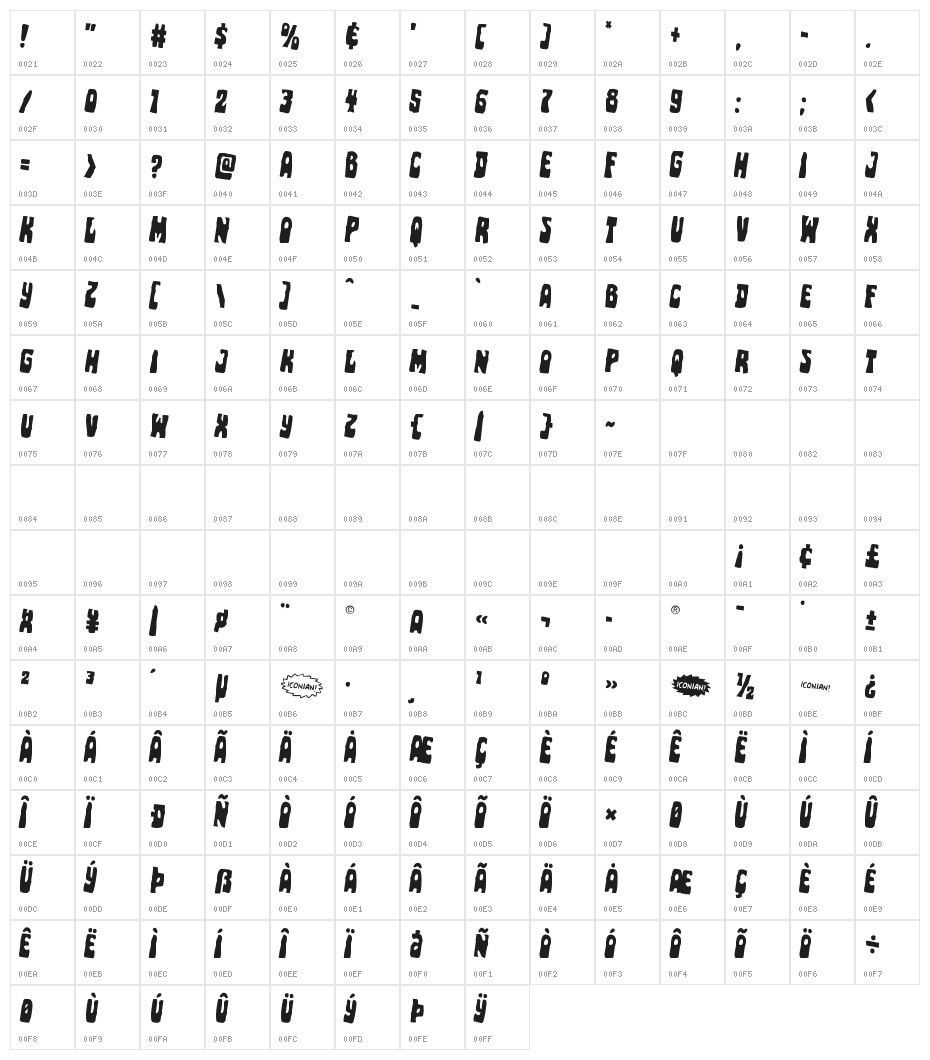
Pocket Monster Rotated 2 Font
Pocket Monster Rotated 2 Description
This font features a bold and playful design with a distinctly cartoonish and whimsical style. The characters are thick and rounded, with a slightly irregular shape that adds to its quirky and fun appearance. The font is highly legible, with each letterform being distinct and easily recognizable. The boldness of the strokes gives it a strong presence, making it ideal for attention-grabbing designs. The font includes a full set of uppercase and lowercase letters, numbers, and a variety of special characters, ensuring versatility in its application.
| Proposed Projects | Ideal for children's books, playful branding, video game graphics, and posters. |